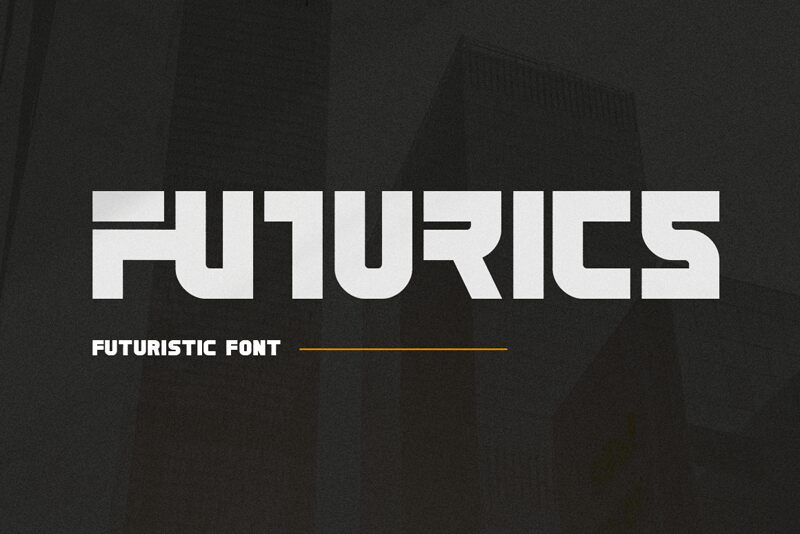
Futurics Bold, a captivating sans-serif font designed by Grontype, exudes a sleek, modern aesthetic. Its clean lines and geometric shapes convey a sense of technological sophistication, evoking a vision of the future. The bold weight adds a touch of authority and confidence, making it an impactful choice for a wide range of design applications.
Futurics Bold's versatility shines through, making it a compelling option for branding, digital interfaces, and editorial layouts. Its strong presence commands attention, making it a suitable choice for headlines, titles, and impactful text elements. Conversely, its legibility and readability also lend themselves well to body copy, allowing for seamless integration across various design projects.
Futurics Bold